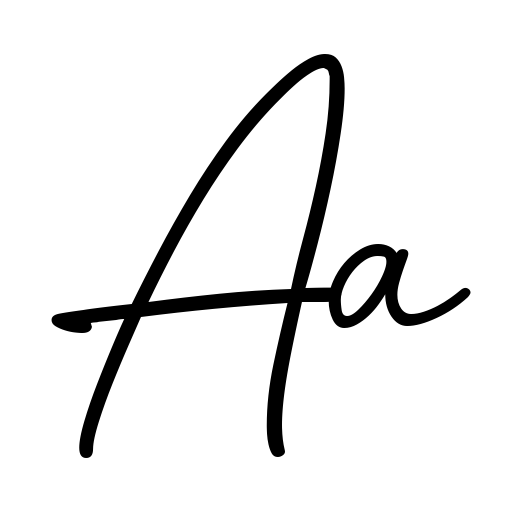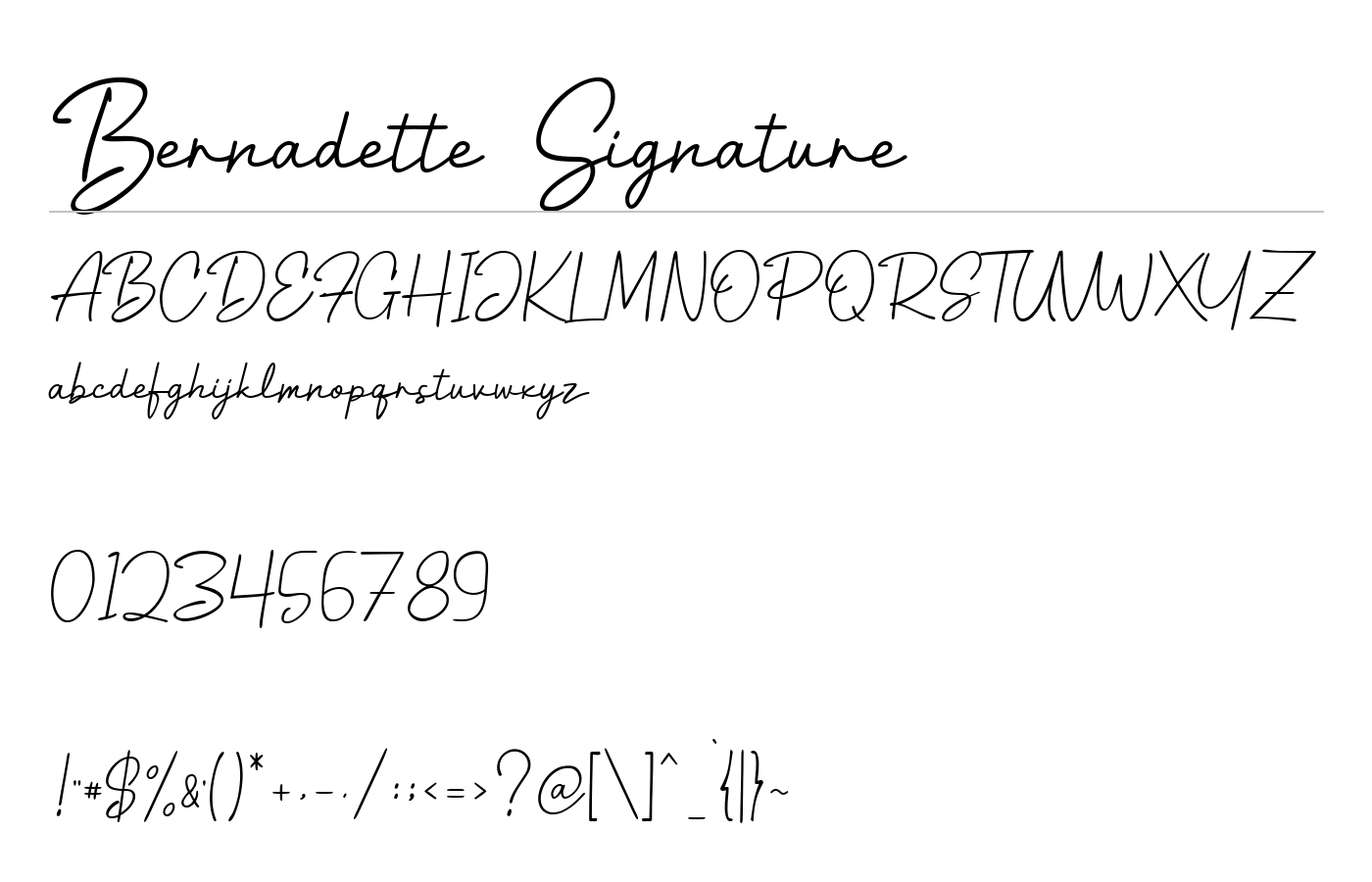
Bernadette Signature is a delicate, handwritten script font that captures an elegant and personal touch with its thin, fluid strokes and slightly slanted letterforms. Its airy, lightweight style makes it perfect for branding, fashion, invitations, and any design that calls for a chic, sophisticated feel. This font works beautifully for logos and headlines, where its graceful charm can shine without losing readability.
Bernadette Signature Font
About Bernadette Signature Font